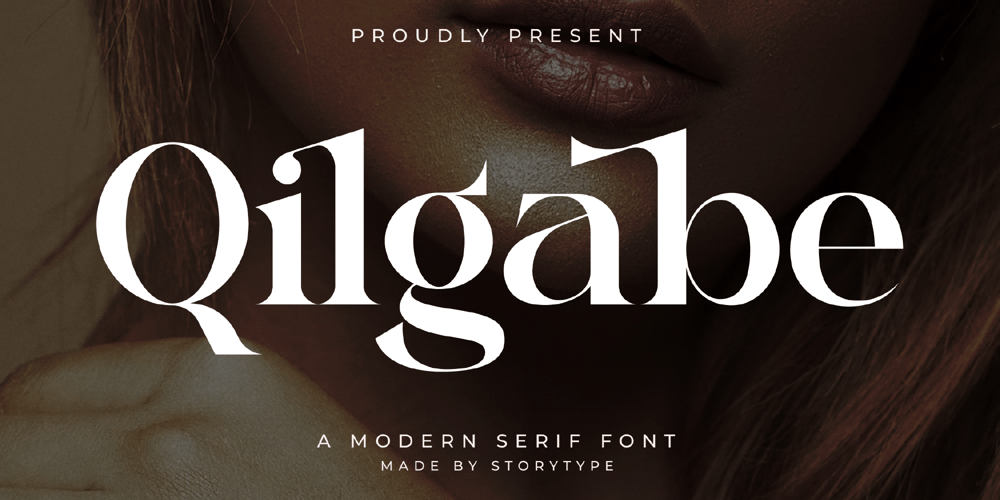
Qilgabe Font Family was designed by Heru Utama Putra and published by Letterena Studios. Qilgabe contains 2 styles and family package options. Qilgabe is a modern and stylish serif font. Add it confidently to your projects and you will love the results!